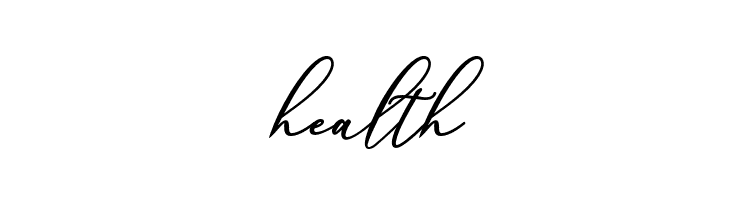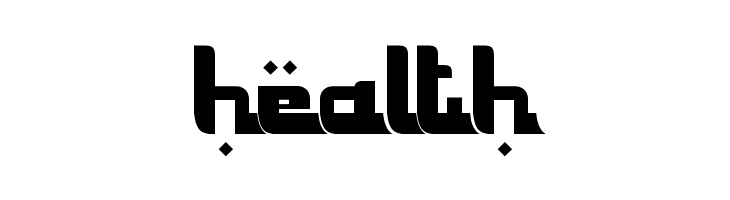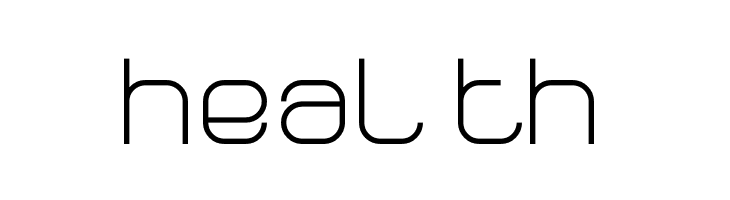
An elegant script font with fluid, cursive strokes and refined details.
A modern, narrow sans-serif font with consistent stroke thickness and balanced spacing.
A playful, decorative font with bold, outlined letters and a hand-drawn style.
A casual, handwritten font with a playful and informal style.
A bold, geometric font with angular shapes and a modern, futuristic style.
A modern, geometric font with clean lines and rounded edges.
A bold, dynamic font with angular lines and a slanted orientation, perfect for impactful designs.
Ornamental font with mosque and Islamic architectural motifs.
A dynamic and elegant script font with flowing, cursive letterforms.
A dynamic brush script font with fluid, natural strokes and a casual, artistic style.